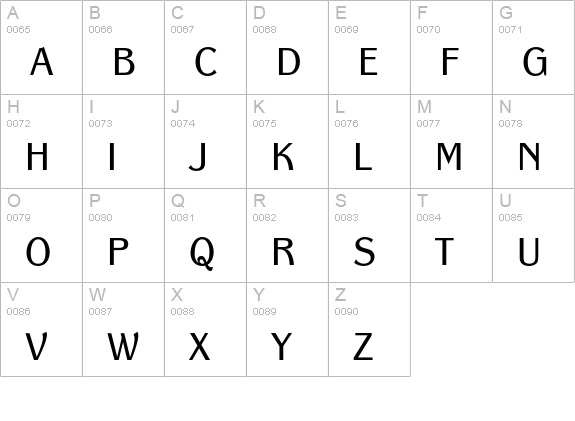
PanacheEF-Book is a comfortable, highly readable variant in the PanacheEF typeface family \xE2\x80\x94 well suited to long-form body text, articles, and editorial content.
Introducing PanacheEF-Book, a truly remarkable font that exudes elegance and sophistication. Designed with meticulous attention to detail, this typeface combines classic elements with a modern twist, making it perfect for a wide range of creative projects. PanacheEF-Book features a harmonious balance between clean lines and subtly curved edges, creating a sense of grace and refinement. The letterforms are expertly crafted, ensuring legibility while also adding a touch of character to any design. From headlines to body text, this font effortlessly captures attention and conveys a sense of professionalism. One of the most remarkable aspects of PanacheEF-Book is that it is free. Yes, you read that right. This stunning font is freely available to download at FontsMarket.com, providing a valuable resource for designers and typographers alike. Whether you're working on a personal project or a client's brief, PanacheEF-Book offers an exceptional quality font without any cost. With its versatility and timeless appeal, PanacheEF-Book is suitable for various design applications. It is perfect for branding and logo designs, editorial layouts, packaging, invitations, and much more. Its clean lines and legibility make it ideal for both print and digital media, ensuring a seamless experience across different platforms. Don't miss out on the opportunity to enhance your creative projects with PanacheEF-Book. Download this exceptional font for free at FontsMarket.com and unlock a world of possibilities. Experience the beauty and elegance of PanacheEF-Book, and let your designs shine with effortless sophistication.